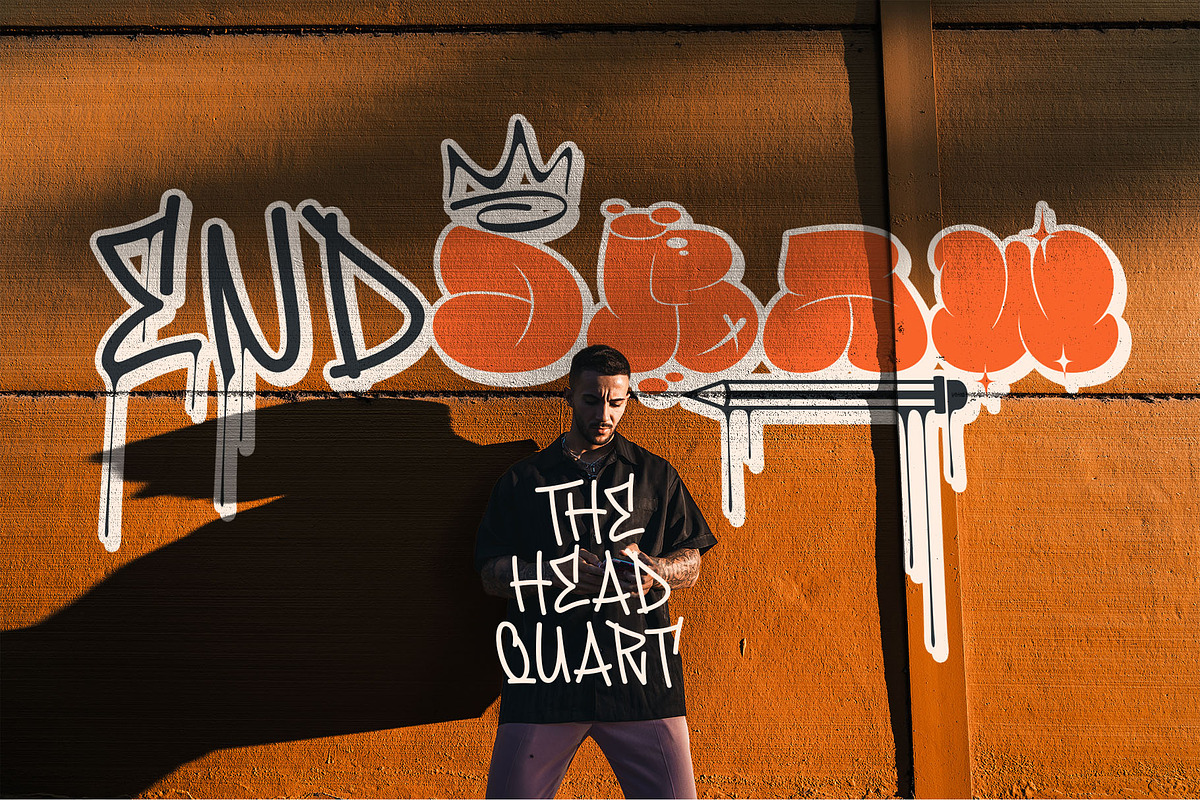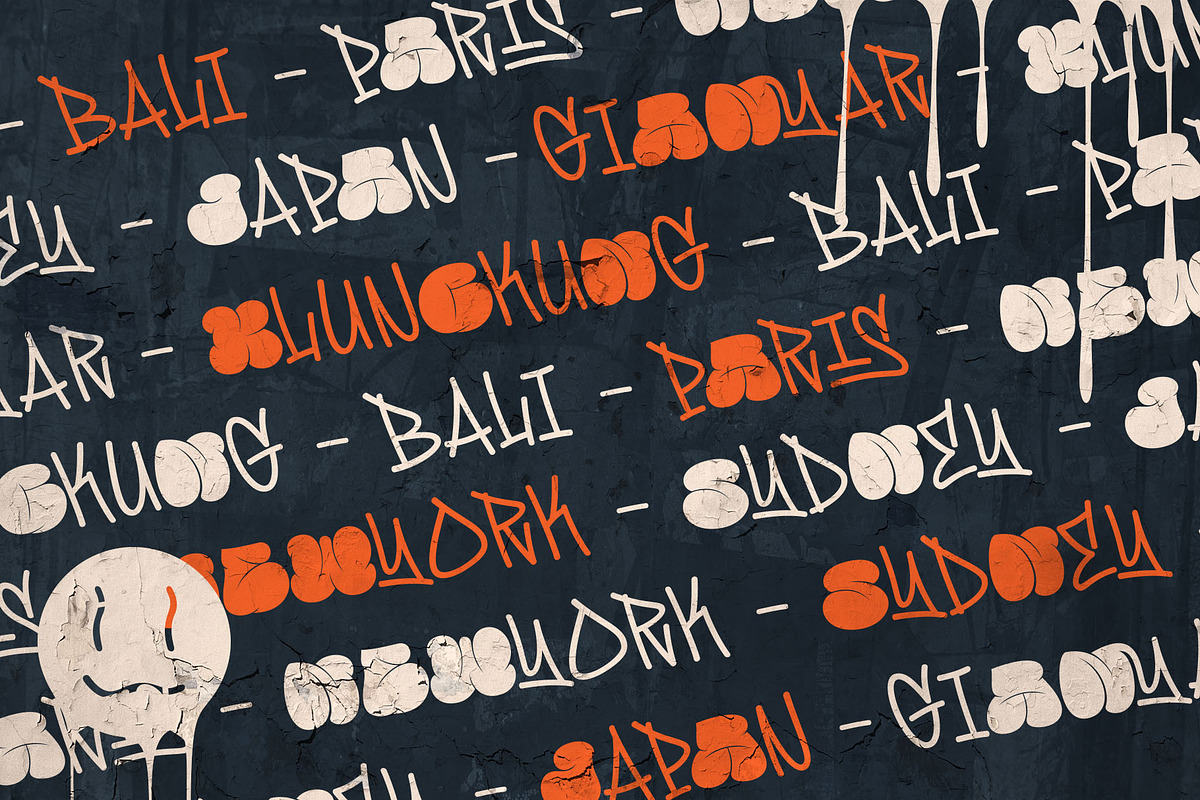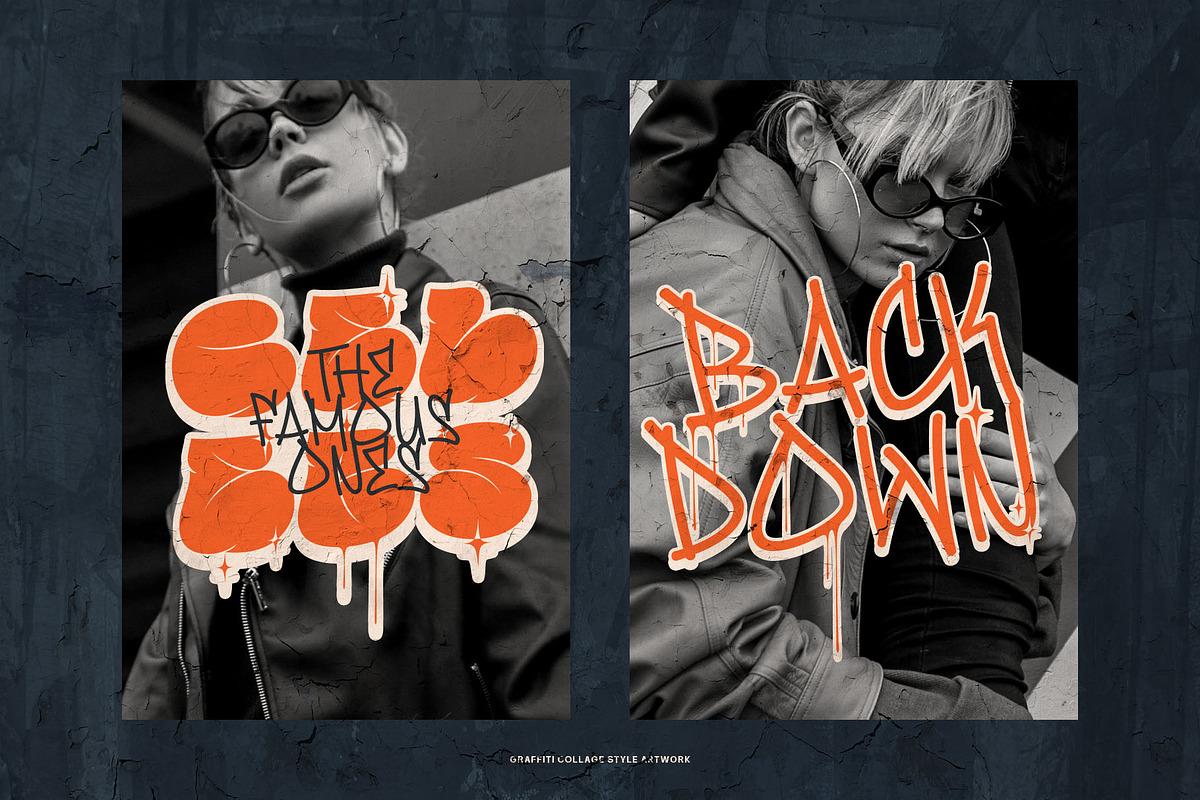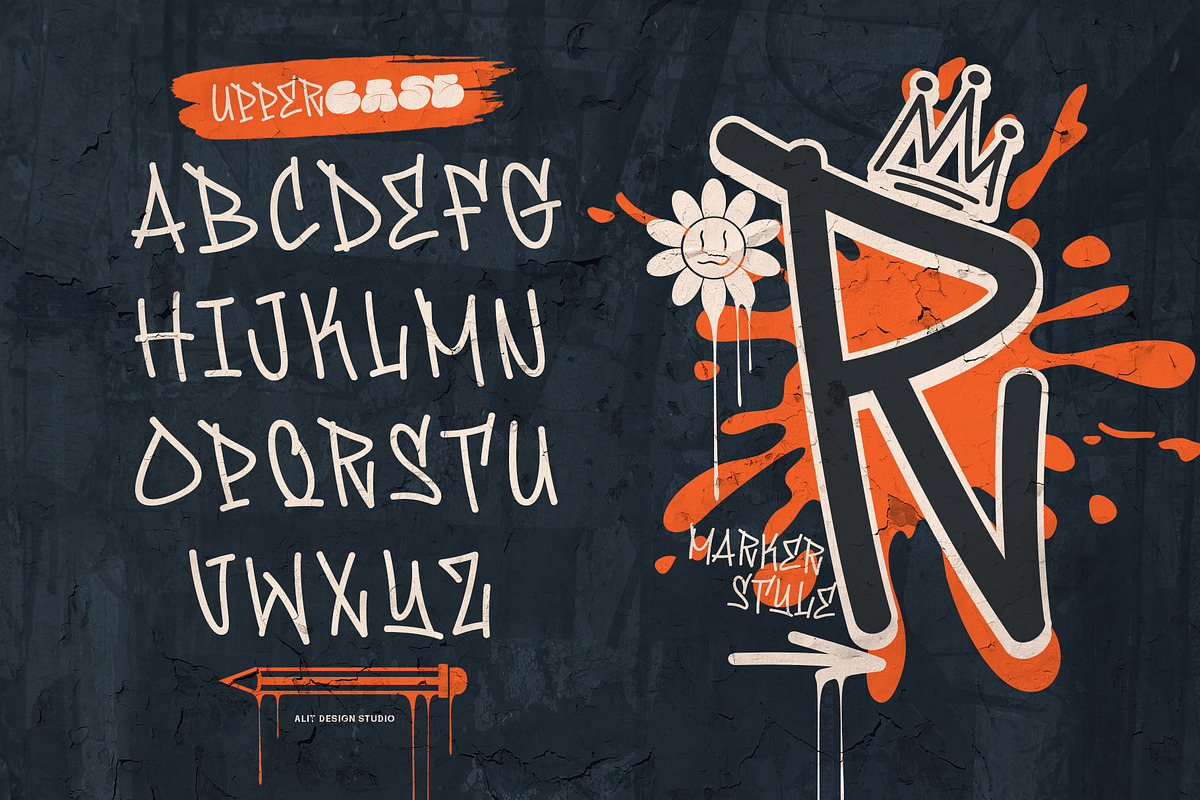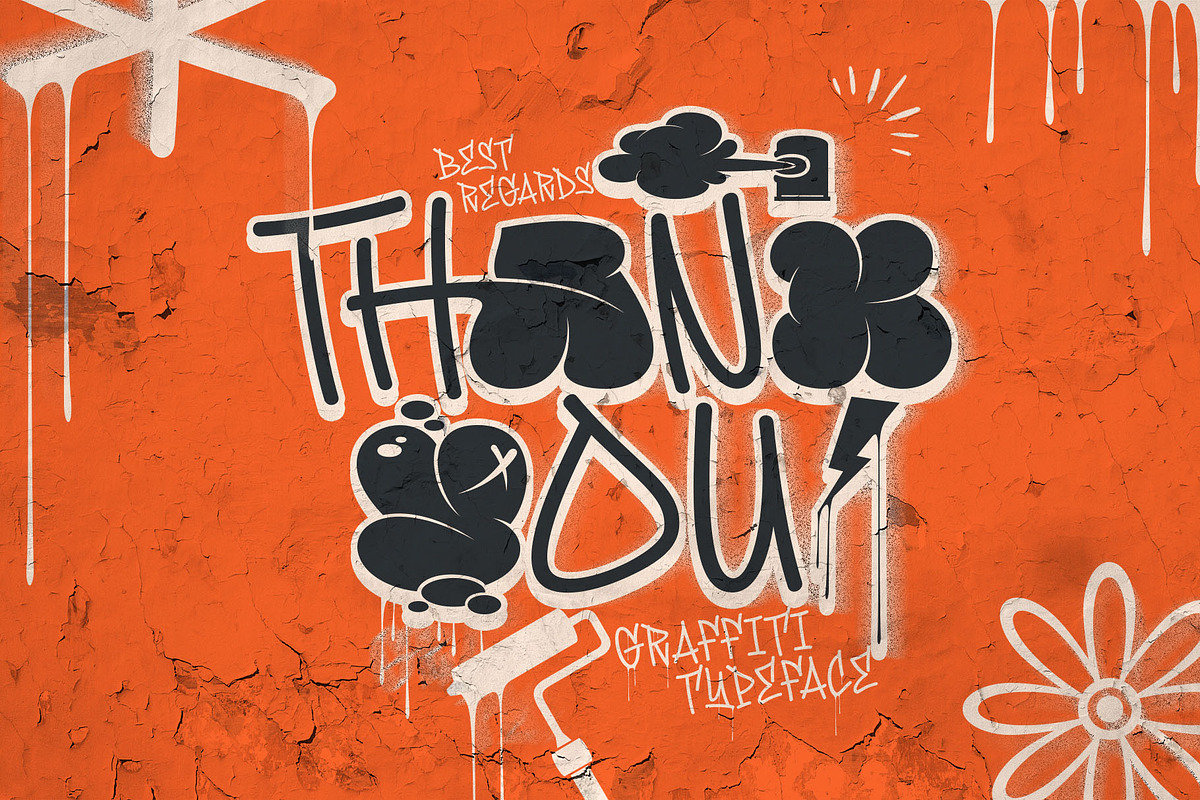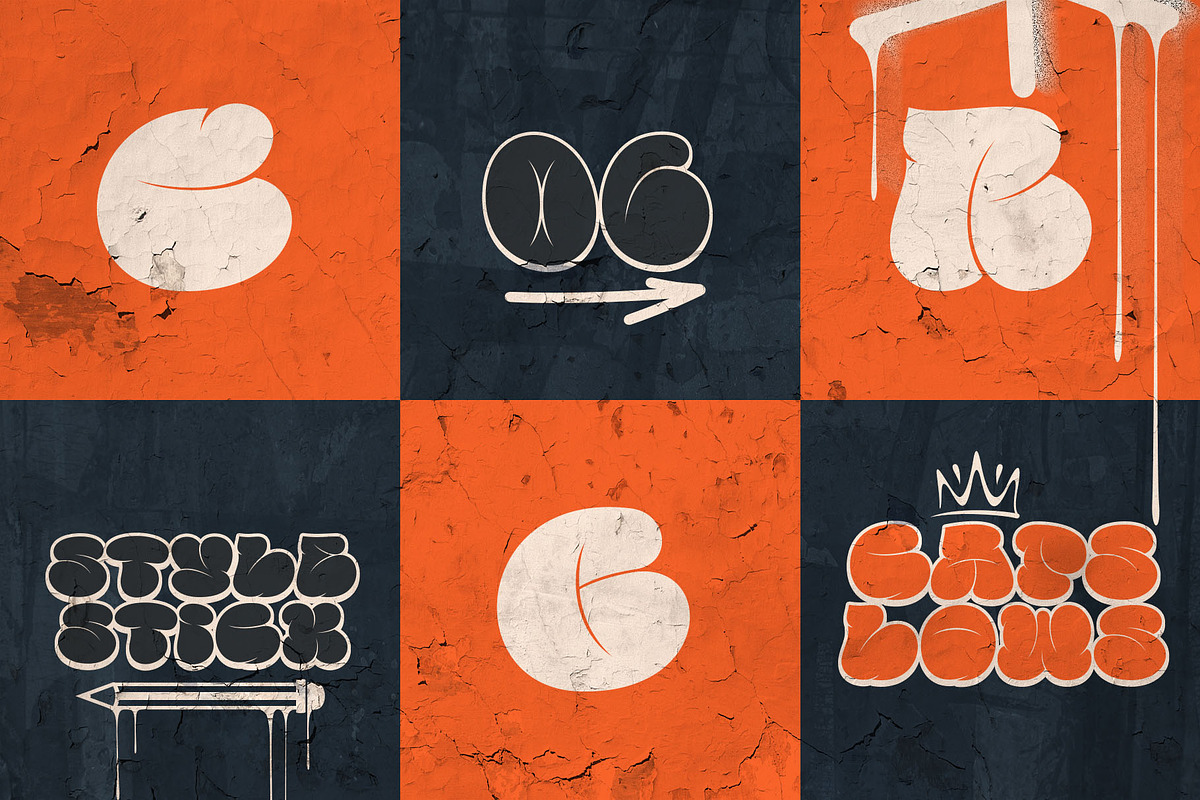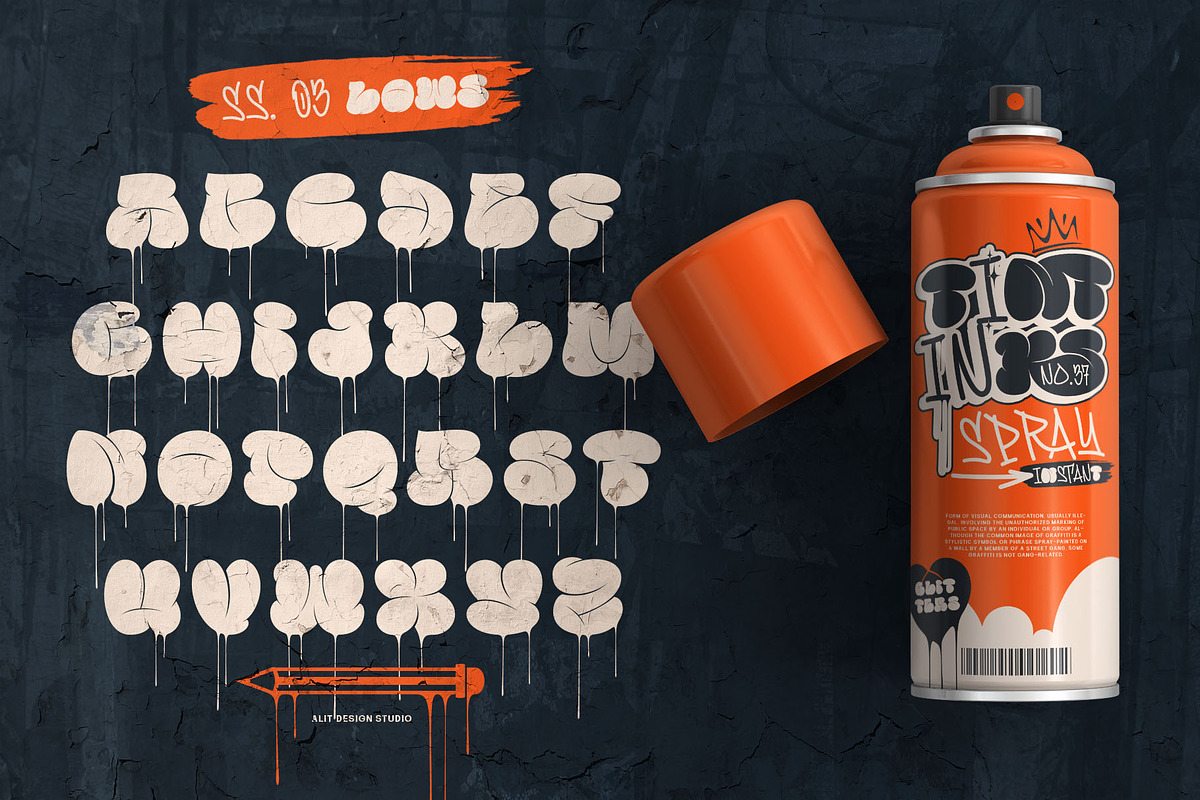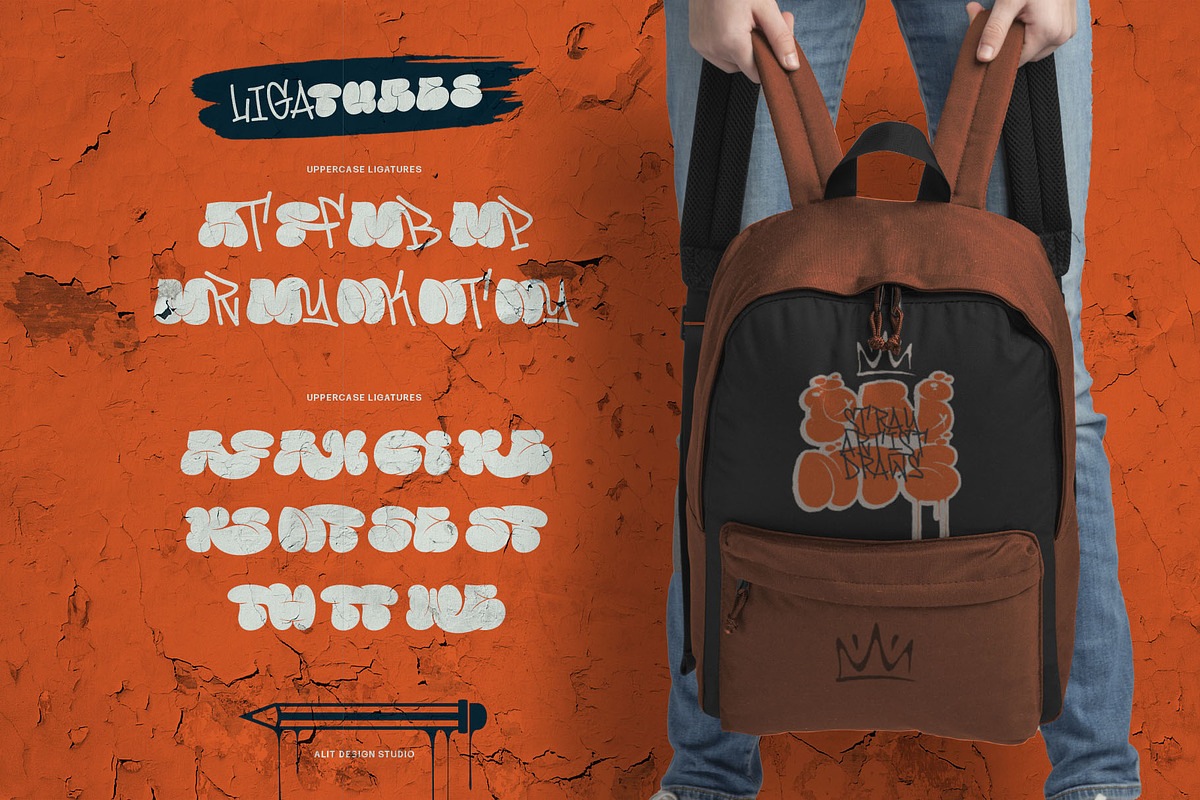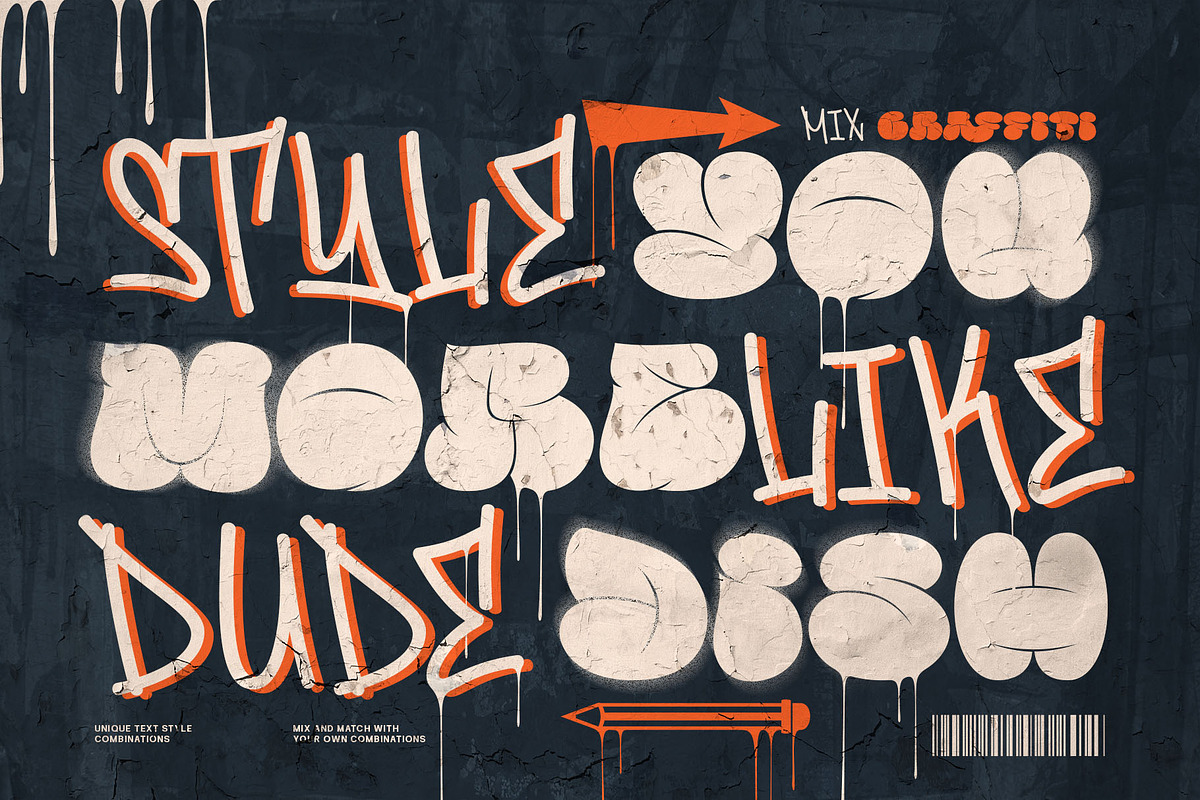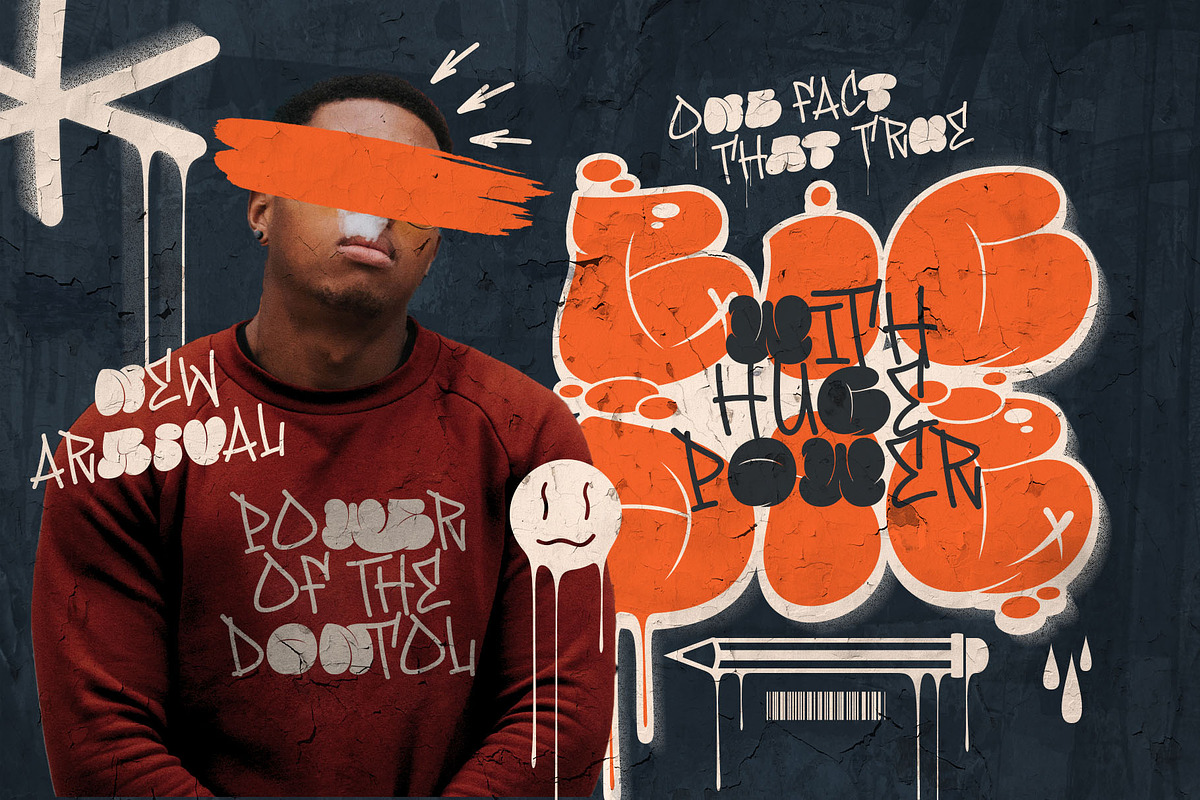
Famous Bomber Graffiti Mix Font
Introducing "Famous Bomber" – a dynamic fusion of urban art graffiti bubble and expressive graffiti script, designed to bring an edgy and contemporary vibe to your projects. Inspired by the raw energy of street art culture, this font embodies the rebellious spirit and creative freedom synonymous with graffiti.
Crafted with meticulous attention to detail, "Famous Bomber" offers a unique blend of bold, graffiti-inspired letterforms and fluid, expressive script characters. The fusion of these two styles creates a visually striking aesthetic that captures the essence of urban artistry.
With an extensive range of alternatives, ligatures, and other features, "Famous Bomber" provides endless possibilities for customization and creativity. Whether you're designing posters, apparel, album covers, or branding materials, this versatile font has you covered.
Each character is meticulously crafted to maintain legibility while retaining the distinctive characteristics of graffiti art. From exaggerated loops and flourishes to rugged edges and irregular shapes, every aspect of "Famous Bomber" exudes authenticity and attitude.
Bring your designs to life with the unmistakable style of "Famous Bomber" – the ultimate choice for adding an urban edge to your projects. Whether you're a seasoned graffiti artist or simply want to infuse your designs with urban flair, this font is sure to make a bold statement. Unlock your creativity and unleash the power of "Famous Bomber" today.